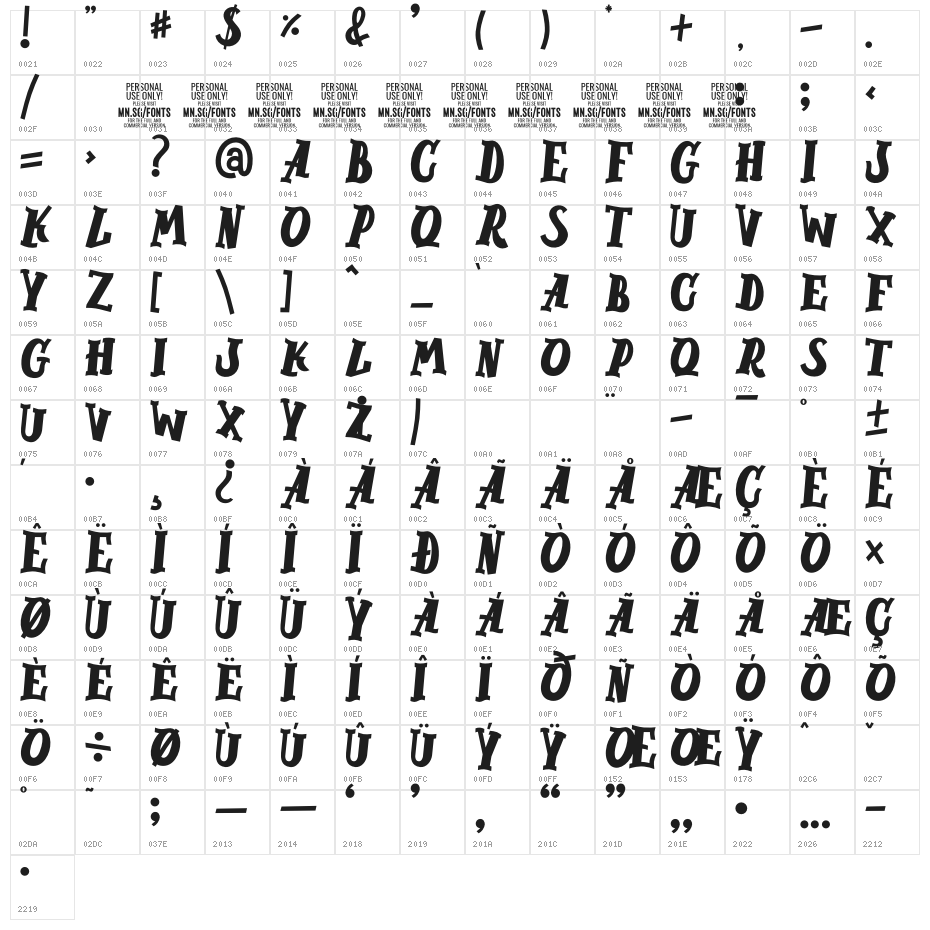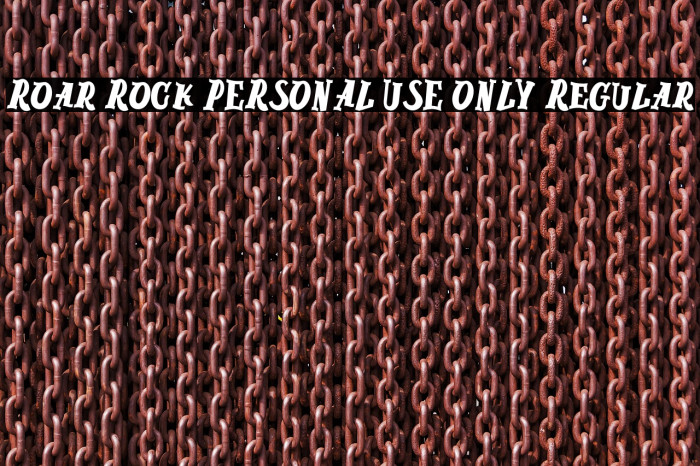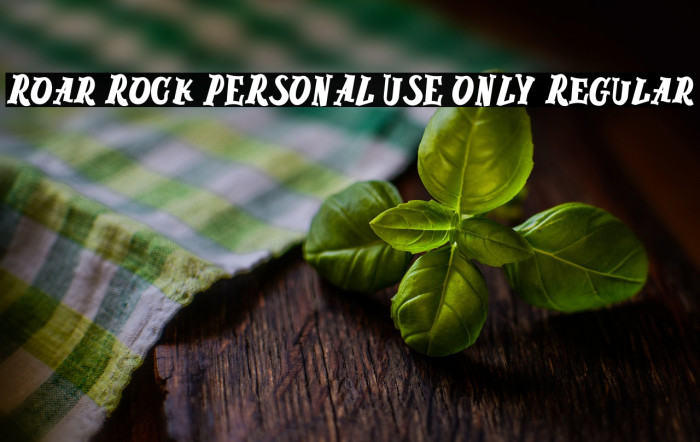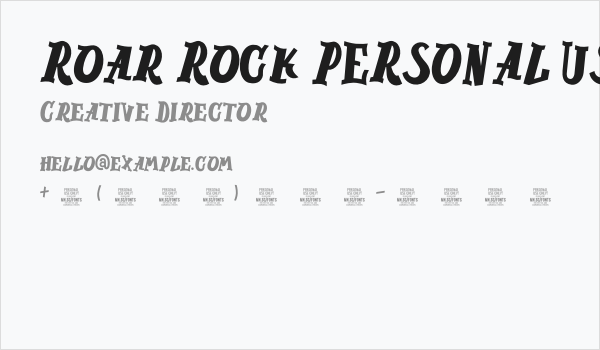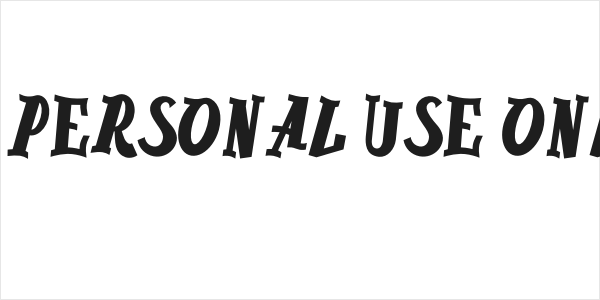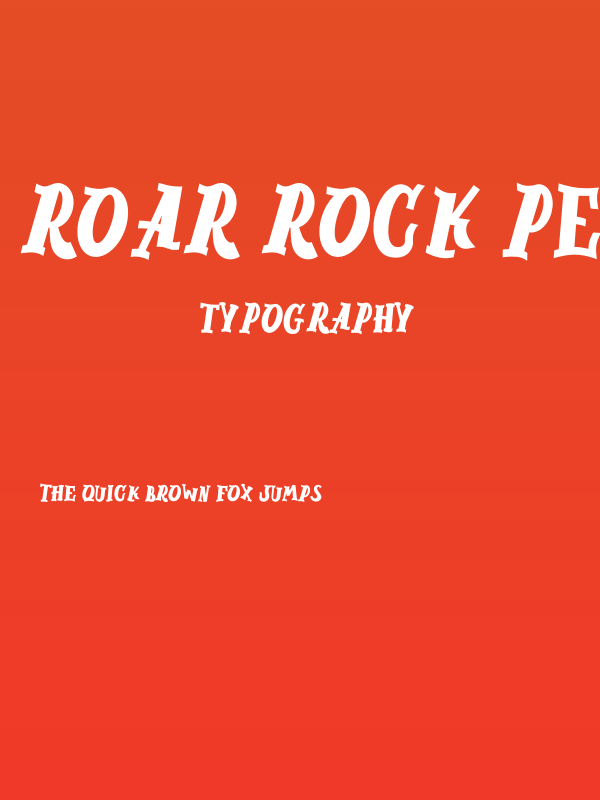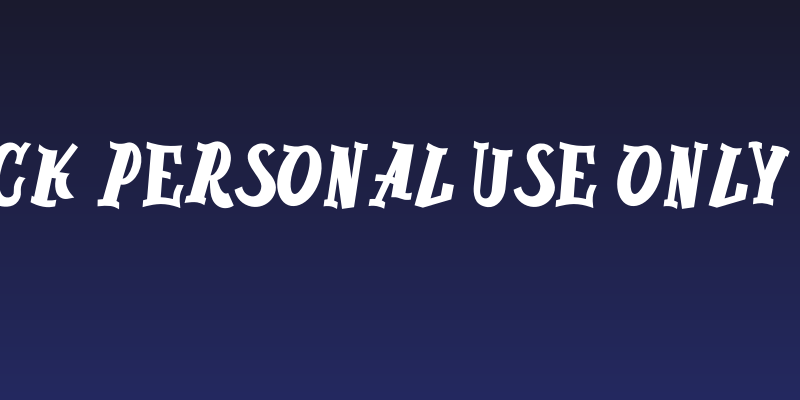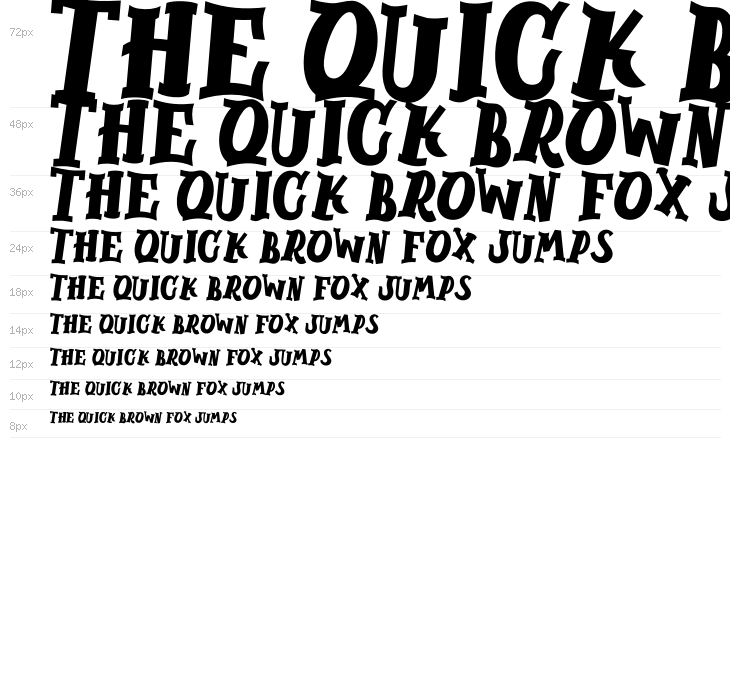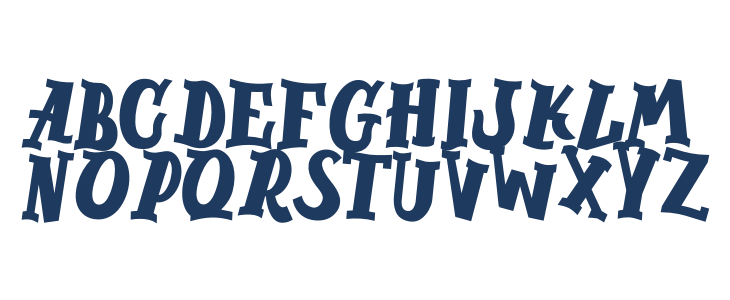
Roar Rock PERSONAL USE ONLY Regular Font
Roar Rock PERSONAL USE ONLY Regular Description
This font features a bold and dynamic style with a strong presence. The letters are slightly slanted, giving them a sense of movement and energy. The strokes are thick and consistent, providing a robust and impactful appearance. The overall design is reminiscent of vintage poster fonts, with a modern twist that makes it suitable for contemporary use. The characters are well-defined, with unique angles and curves that add to its distinctive look. This font is perfect for making a statement, whether in headlines, logos, or branding materials.
| Overall Style | Vintage, Modern |
| Proposed Projects | Ideal for use in posters, logos, branding, and any project requiring a strong visual impact. |